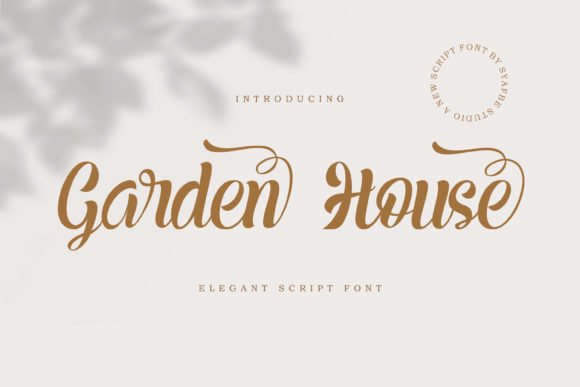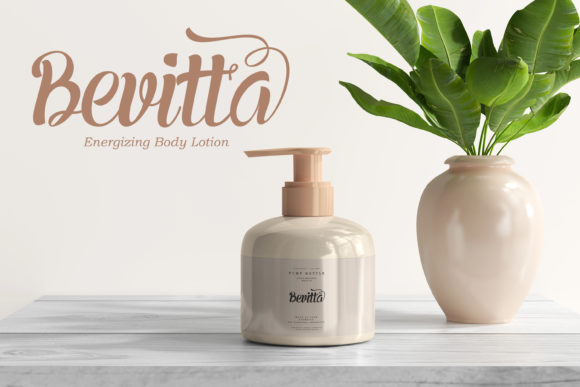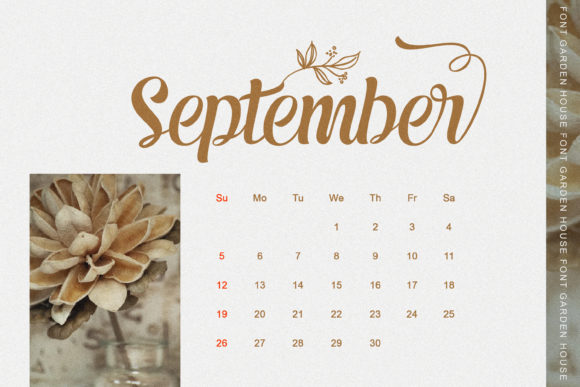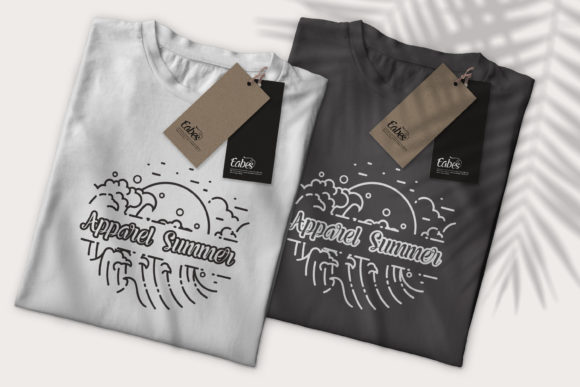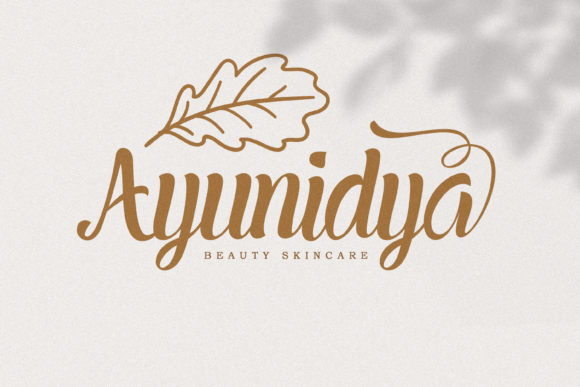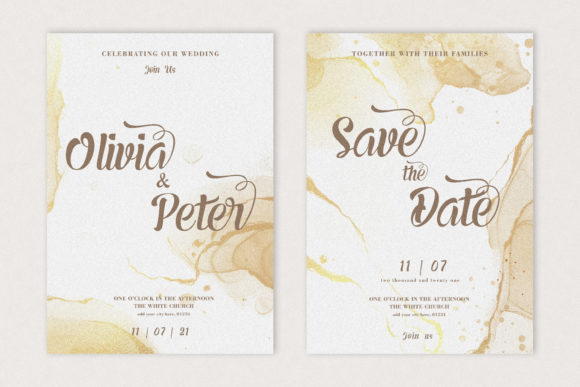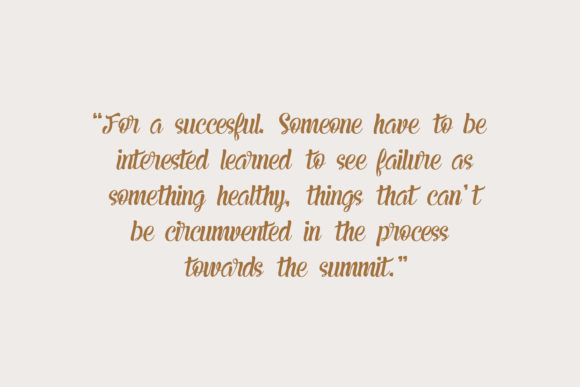
The Perfect Blend of Whimsy and Elegance: Introducing Garden House Font
Do you remember the moment when you first fell in love with a font? Maybe it was the quirky feel of a handwritten font on a coffee shop’s menu board, or the elegant sophistication of a serif font on a luxury brand’s logo. For me, it was the moment I stumbled upon Garden House Font, and I knew I had to share it with the world.
Garden House Font is a unique, bold, and stylish handwritten font that’s perfect for adding a personalized touch to your designs. Whether you’re creating wedding invitations, thank you cards, or logos, this font is sure to make your creations stand out. Its PUA encoding makes it easy to access all the glyphs and swashes, giving you endless possibilities for customization.
Garden House Font Key Features
- Unique Characteristics: The Garden House Font features a unique blend of modern and vintage elements, with intricate details and ornaments that evoke a sense of elegance and sophistication.
Garden House Font Review
Garden House Font is a beautiful, elegant script font that would be perfect for any design project that requires a touch of sophistication and whimsy. ✨ The fluid, connected strokes and subtle flourishes give the font a natural, hand-painted feel that’s sure to delight.
Some of the things that I love about Garden House Font include:
- Its versatility: Garden House Font is perfect for wedding invitations, branding, and even children’s books.
- Its readability: Despite its elegant appearance, the font is surprisingly easy to read, even in small sizes.
- Its customizability: The font comes with a range of OpenType features that allow you to customize the look and feel to suit your needs.
However, I do have a few concerns about Garden House Font:
- Its limitations on digital displays: While the font looks stunning on paper, it can appear a bit pixelated on digital screens.
- Its lack of bold weights: If you need a bold or condensed version of the font, you may be out of luck.
Overall, I think Garden House Font is a wonderful addition to any designer’s toolkit. While it may have some limitations, its unique charm and beauty make it well worth considering for your next project.
The Garden House Font is ideal for:
- Home decor and furniture labels
- Outdoor and gardening-related designs